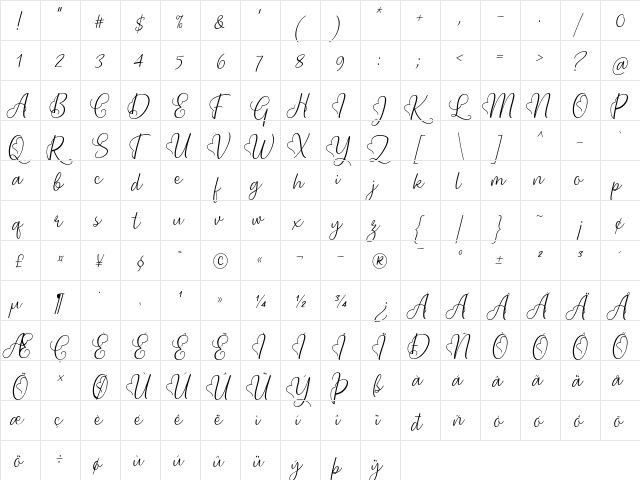
Lova Valove Regular
| Foundry | 7NTypes |
| Designer | Situjuh Nazara |
Design Context for Lova Valove Typeface
Lova Valove is a composed and adaptable typeface that performs quietly and consistently across a wide range of design contexts.